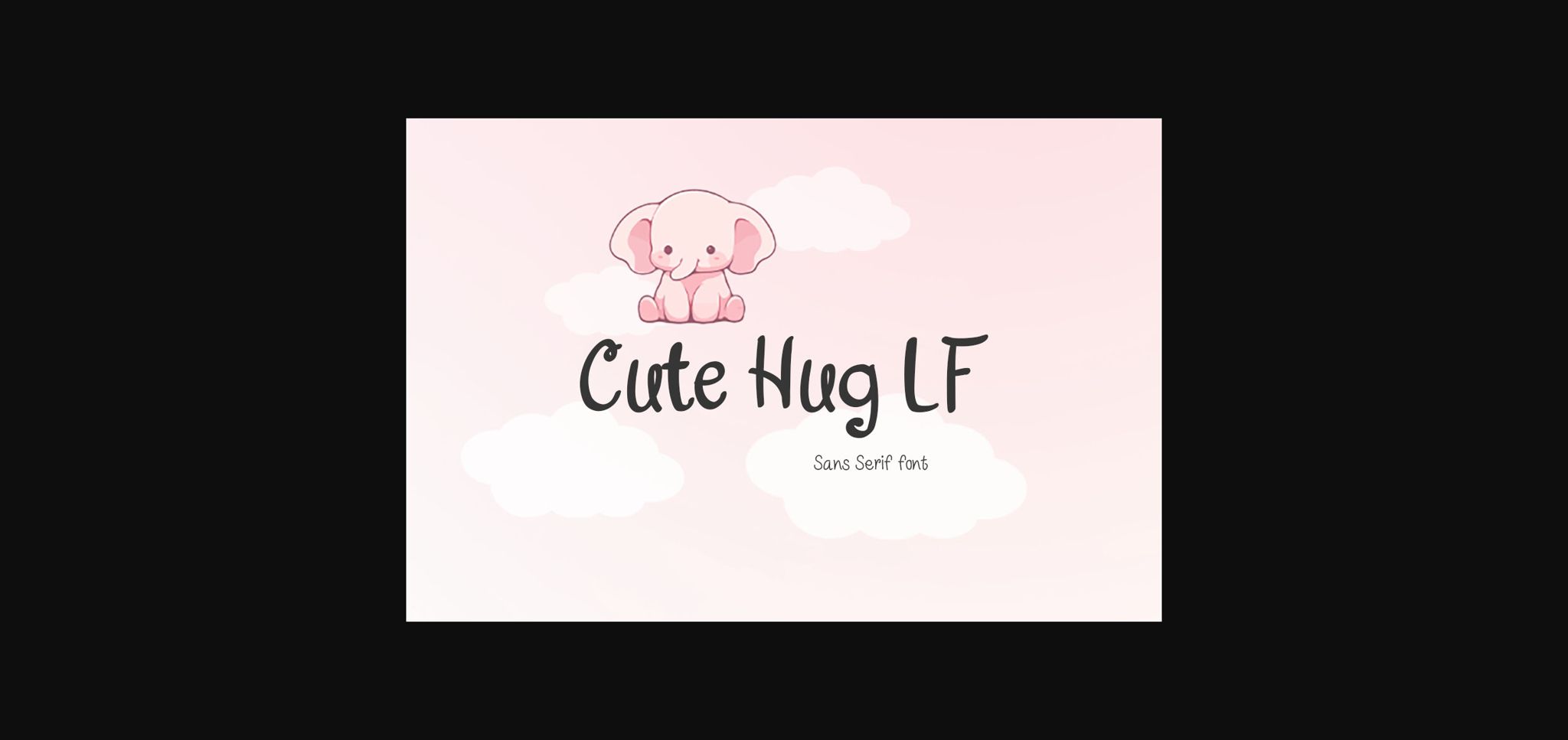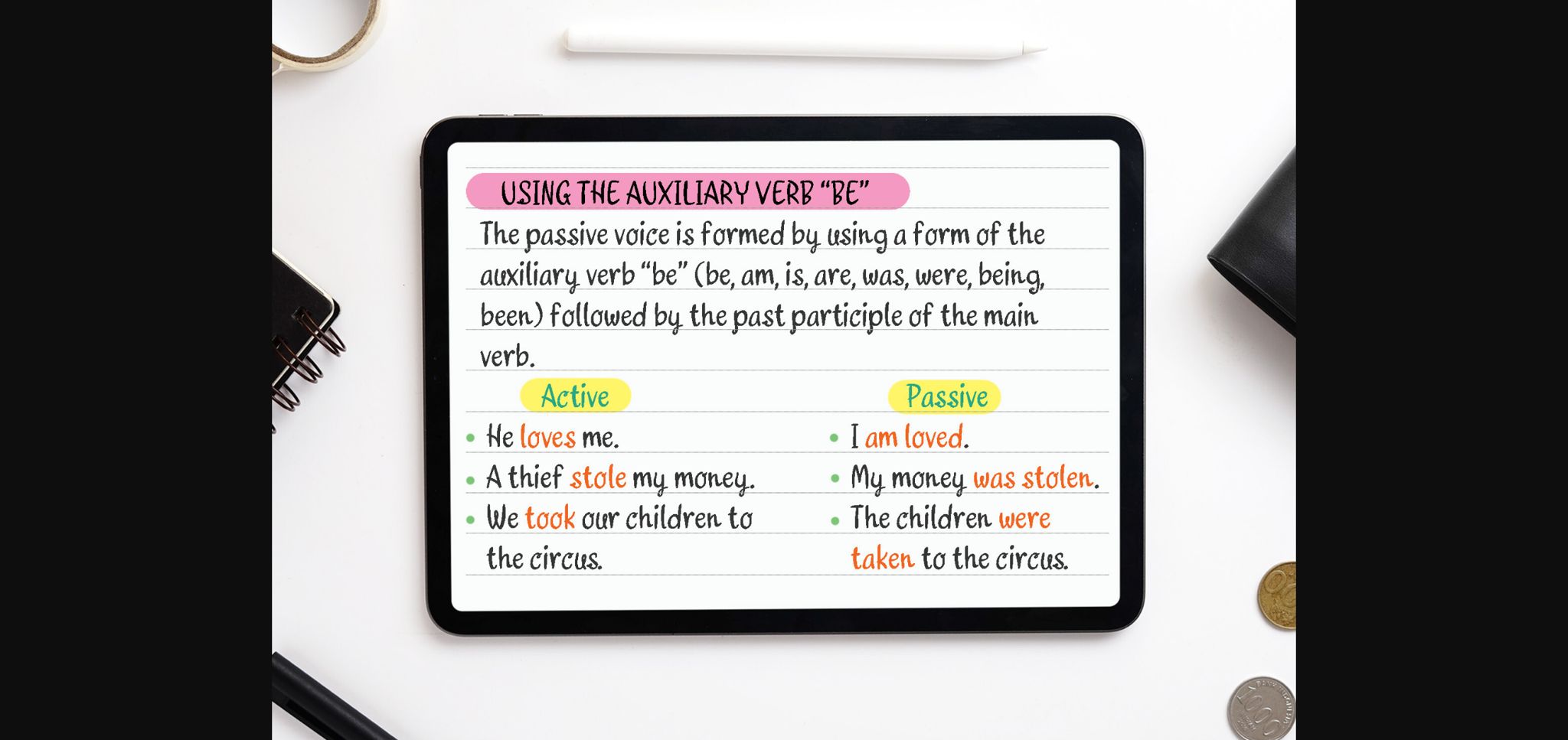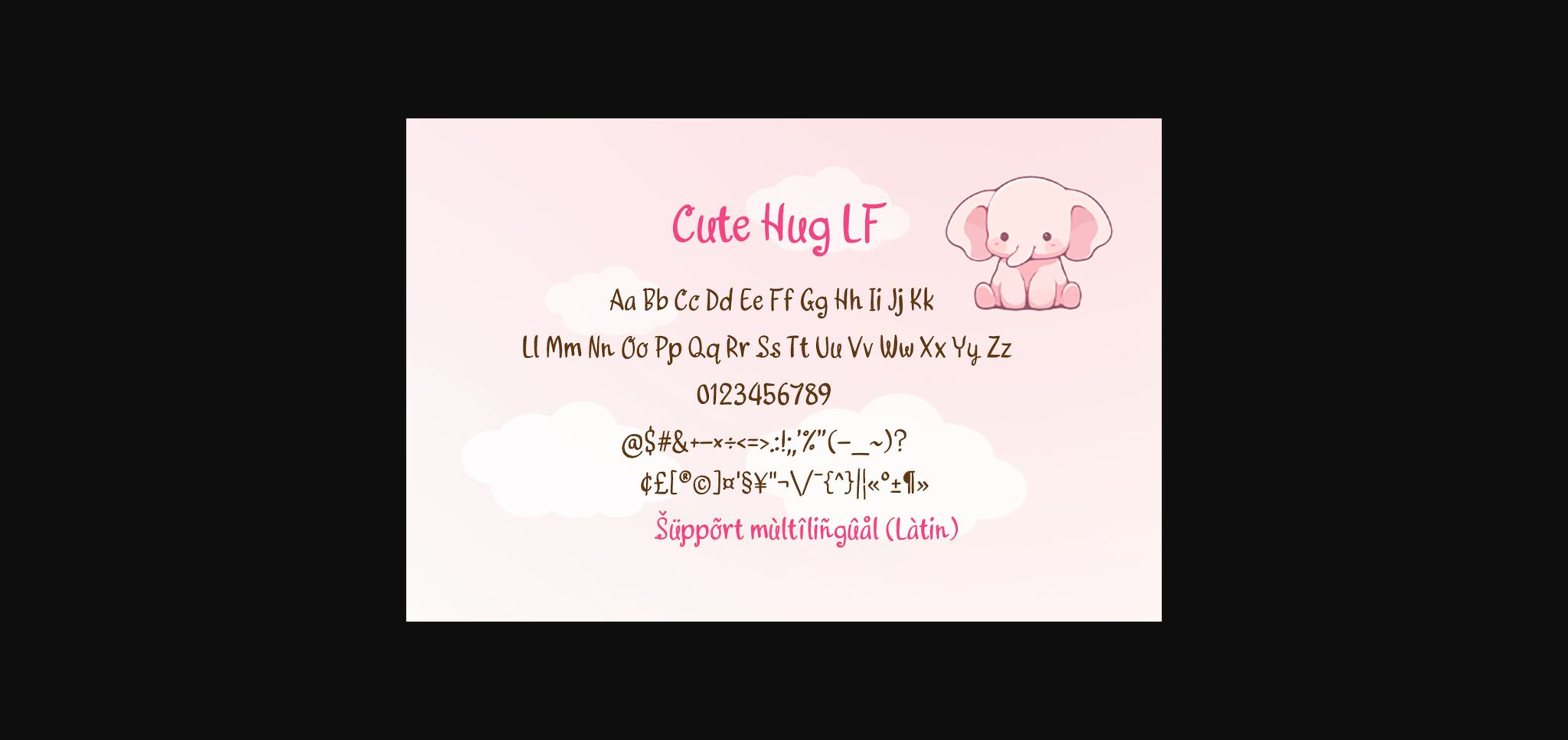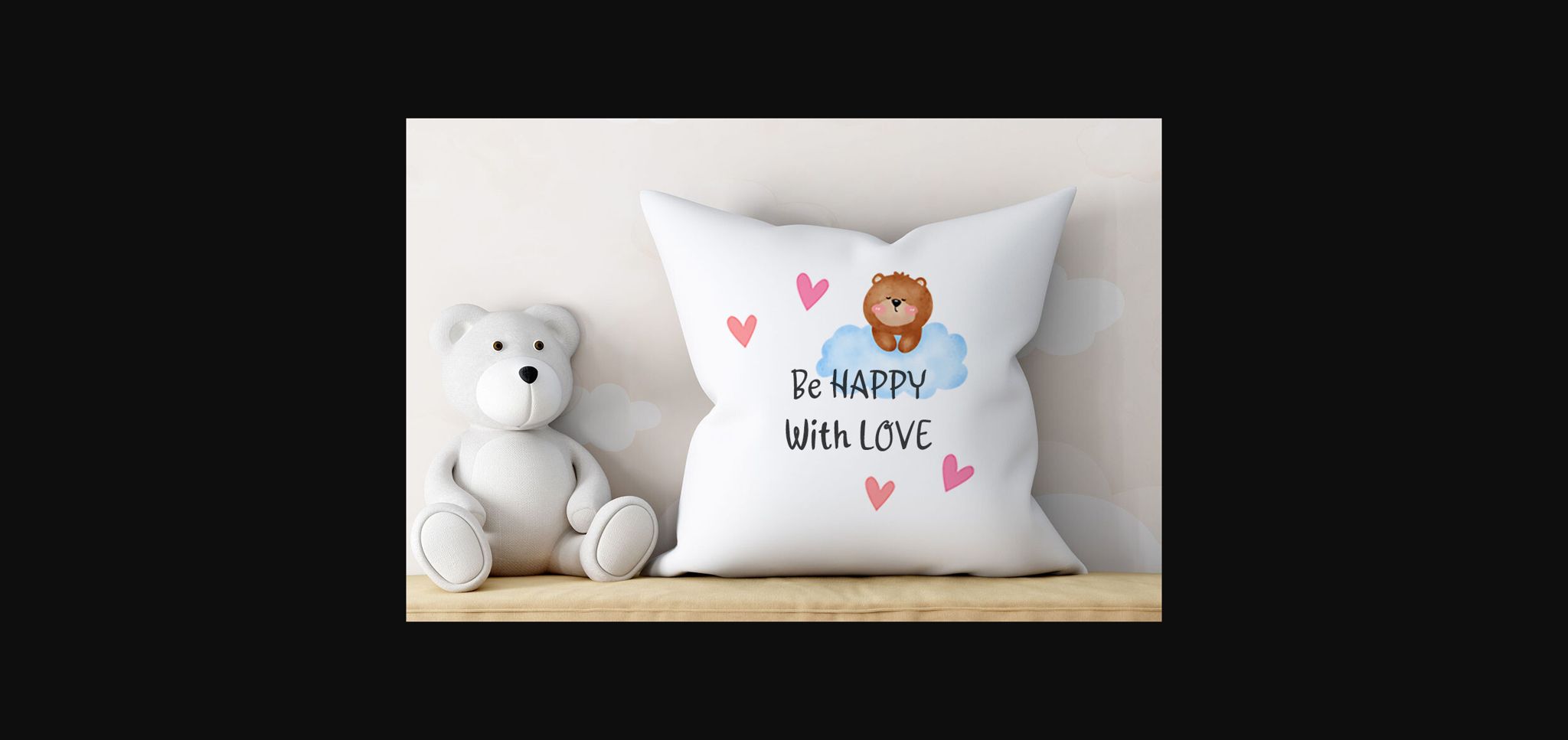
About Cute Hug Lf Font
Cute Hug LF is a cute, cheerful and playful sans serif font style. It would be awesome to your fun projects or diary planner, on wedding invitations, thank you cards, headlines, children themed designs, quotes, greeting cards, logos, posters, blogs, bag, T Shirt, clothing and other designs.